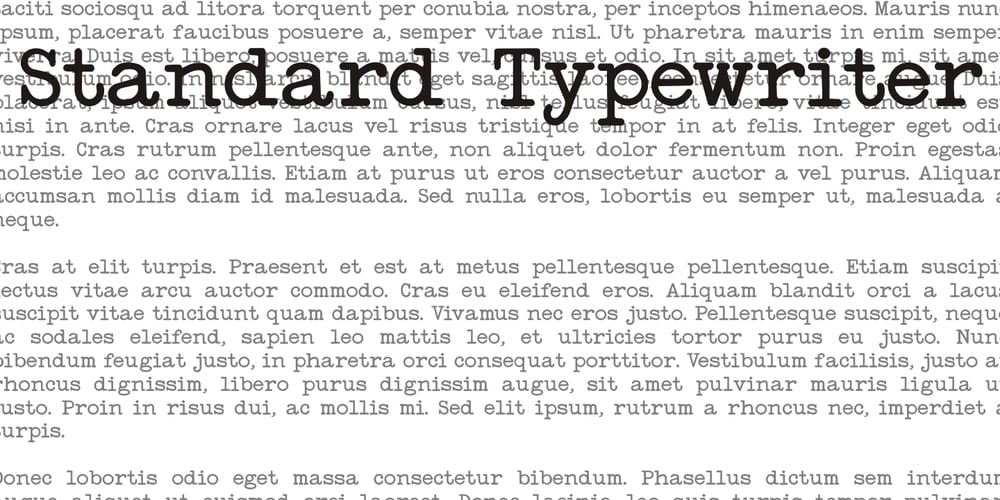
Standard Typewriter Font Family was designed by Iza W and published by Intellecta Design. Standard Typewriter contains 3 styles and family package options. Standard Typewriter, one of the Intellecta’s bestsellers, is a family of emulation typewriter fonts with a partocular thin and beautifuldesign to improve your artwork.